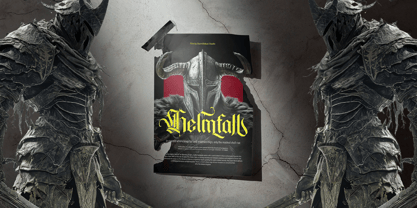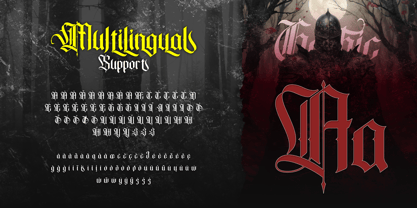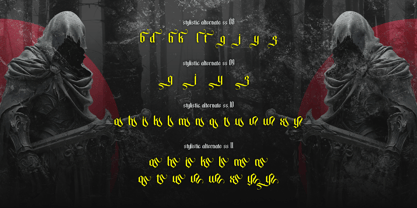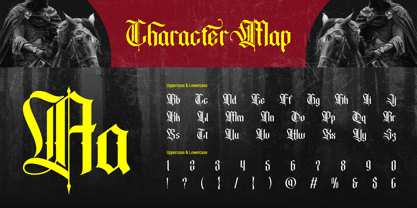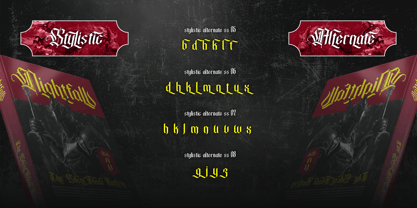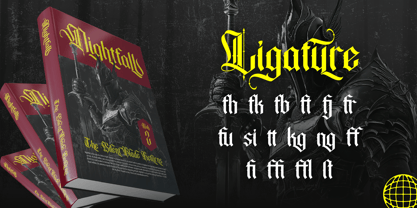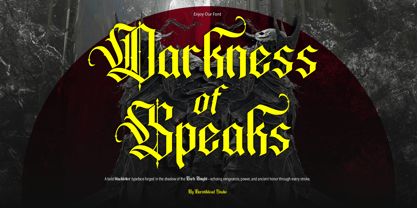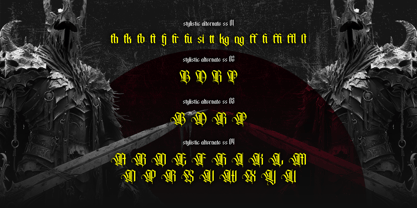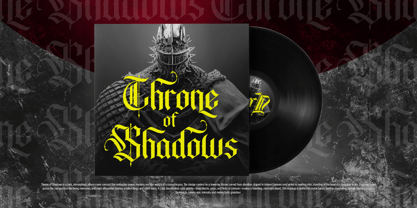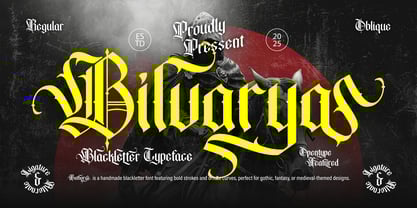
Bilvarya
by Burntilldead
The Bilvarya Font Family was designed by Eric Kurniawan and published by Burntilldead. Bilvarya contains 2 styles and family package options. More about this family
Features:
• Uppercase & Lowercase
• Number
• Punctuation
• Alternate
• Ligatures
• Multilingual
Designers: Eric Kurniawan
Foundry: Burntilldead